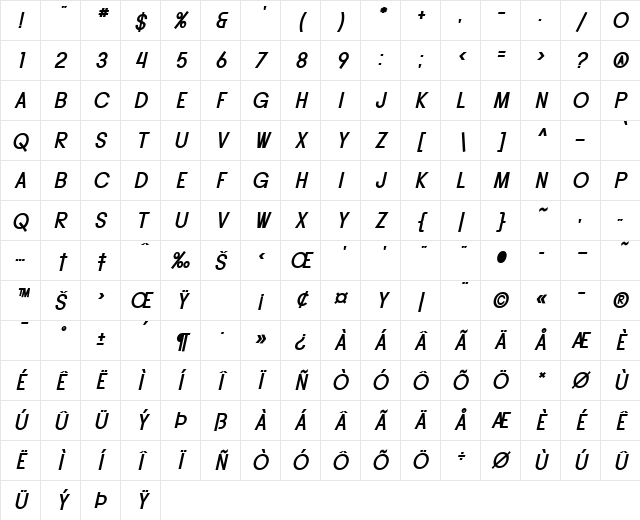
SF Buttacup Lettering Bold Oblique Free Font
SF Buttacup Lettering Bold Oblique
Style: Bold Oblique
Designer: ShyFonts Type Foundry
Design Context for SF Buttacup Lettering
SF Buttacup Lettering is a composed and adaptable typeface that performs quietly and consistently across a wide range of design contexts. The slanted form adds forward momentum and visual energy. Its bold stroke weight gives it real presence on the page.